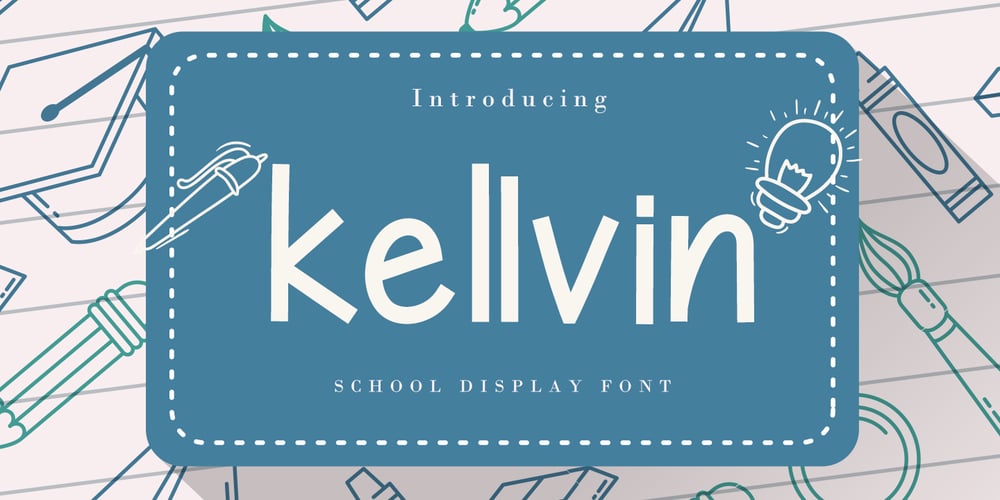
Kellvin
Kellvin font
Kellvin Font Family was designed by Agung Eko Nugroho and published by AEN Creative Studio. Kellvin contains 2 styles and family package options. Kellvin is a fun and friendly display font, that can easily stand out. Simple but with a strong visual effect, this font will instantly make your creation more appealing than any others.